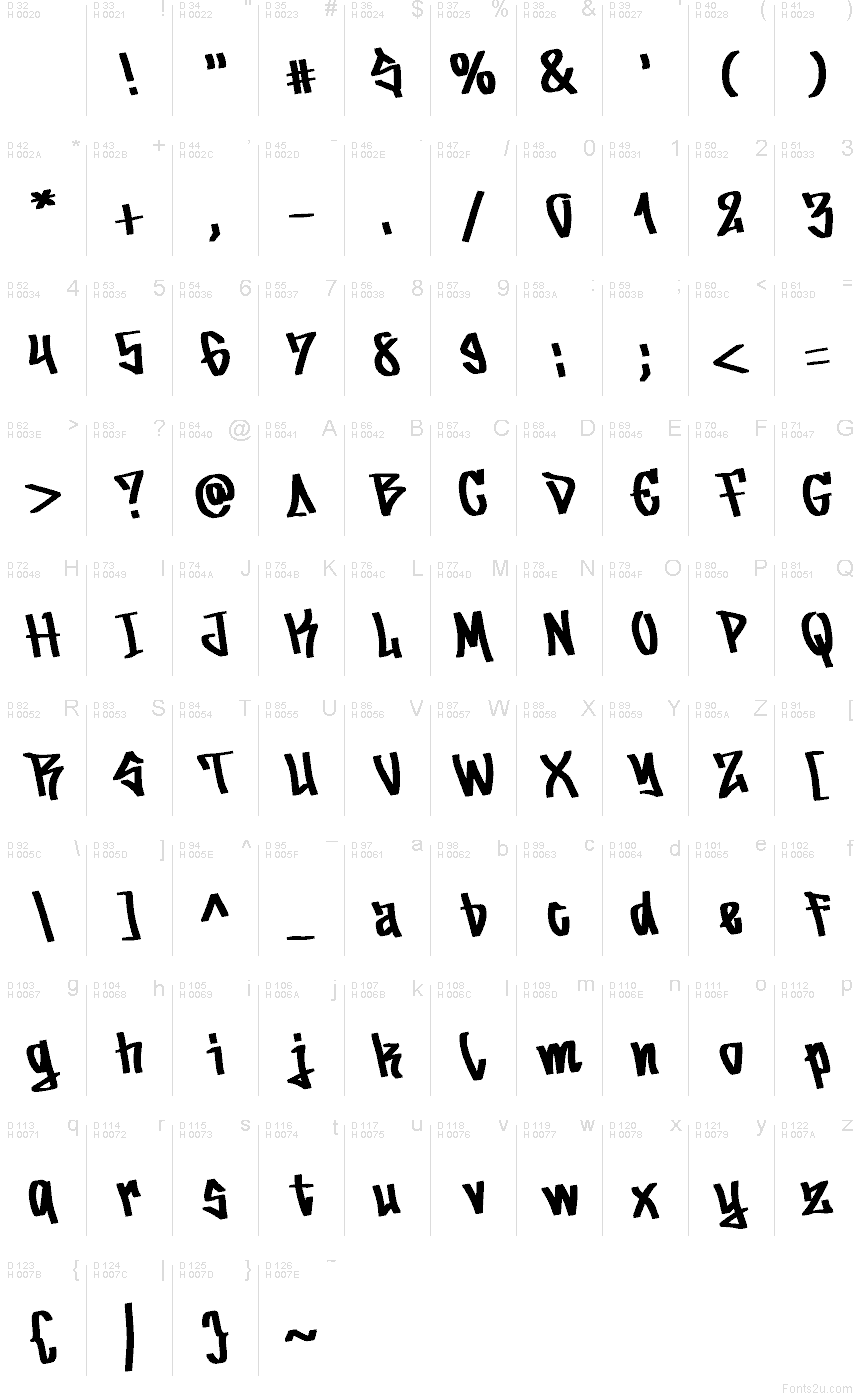
Arogan Street by Hello Good Studio is a free graffiti script with an unruly, cut-paper silhouette and sharply changing stroke widths. Its tall, loosely connected letters lean through sudden hooks, wedges, and blunt turns, capturing the quick impact of a marker tag without smoothing away the awkward edges.
Music posters make a convincing home for this lettering, and the same aggressive shapes fit skate merchandise, album art, and underground event graphics. It is strongest when a poster needs a raw tag-like title.